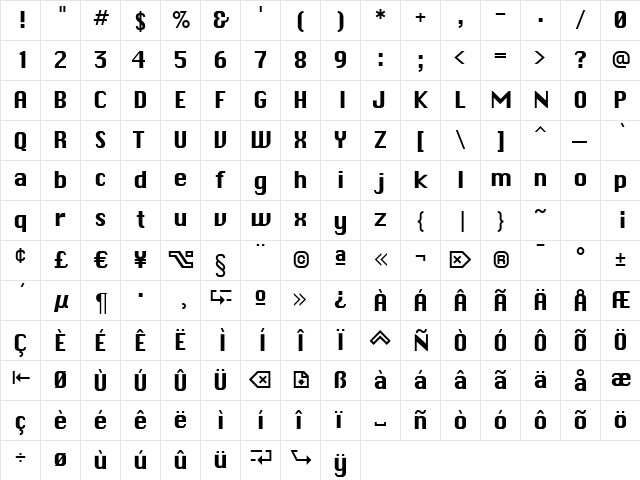
MacEnvy Regular
Design Context for MacEnvy Typeface
MacEnvy offers clean, dependable letterforms without strong stylistic allegiance, making it a practical choice for designers who need flexibility.